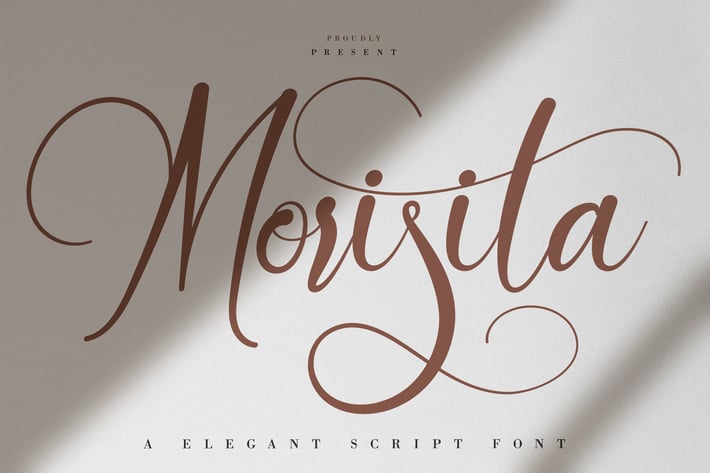
Morisita | Elegant Script Font
Morisita | Elegant Script Font with a calligraphy style, So beautiful on invitation like greeting cards, branding materials, business cards, quotes, posters, and more!